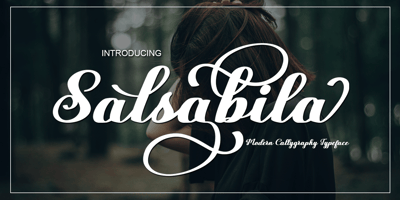
Salsabila Font Family was designed by Marwah and published by BBA Key. Salsabila contains 1 styles and family package options. Salsabila is a new and fresh script with decorative. It works well for greeting cards, branding material, business cards, quotes, posters, and more.This font comes with 473 glyphs. Alternate characters are divided into several OpenType features such as Swashes, Stylistic Sets, Stylistic Alternates, and Contextual Alternates. OpenType features are accessible by using Open Type savvy programs such as Adobe Illustrator, Adobe InDesign, Adobe Photoshop Corel Draw X versions, and Microsoft Word. And this font has code PUA unicode (font with special code), so that all alternative characters can be easily accessed by craftsmen or designers.This Font The comes with Uppercase & lowercase International signature & symbol Punctuation Support & PUA number Unicode Style Style Alternative Style Style Range 1-11 Contextual Character Variations.If you do not have programs that support OpenType features like Adobe Illustrator and CorelDraw X Versions, you can access all alternative flying machines using Font Book (Mac) or Character Map (Windows).